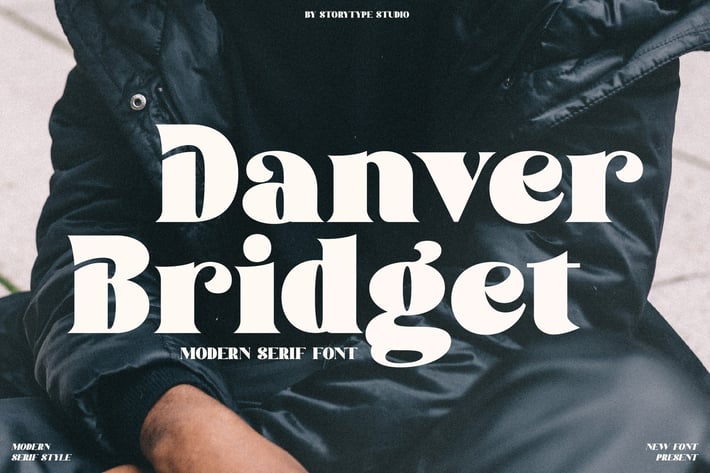
Danver Bridget Serif Font
Danver Bridget is a modern display serif with chunky curves, soft wedge serifs, and a refined, editorial vibe. High contrast strokes and smooth terminals make headlines feel luxurious while still friendly and readable. Use it to instantly give brand assets and layouts a curated, magazine-quality look.
+ Modern high-contrast display serif with rounded, organic details
+ Stylish discretionary ligatures & alternates for distinctive word shapes
+ Full uppercase & lowercase sets + numerals & punctuation
+ Carefully tuned kerning for clean spacing at large sizes
+ Optimized for titles, logos, and short editorial copy
Perfect for:
+ Branding & logo wordmarks
+ Editorial & magazine covers
+ Fashion & beauty campaigns
+ Product packaging & labels
+ Posters, flyers & signage
+ Social media headlines & quotes
+ Wedding & event stationery
+ Website hero text & banners
Make every headline feel like a cover story.